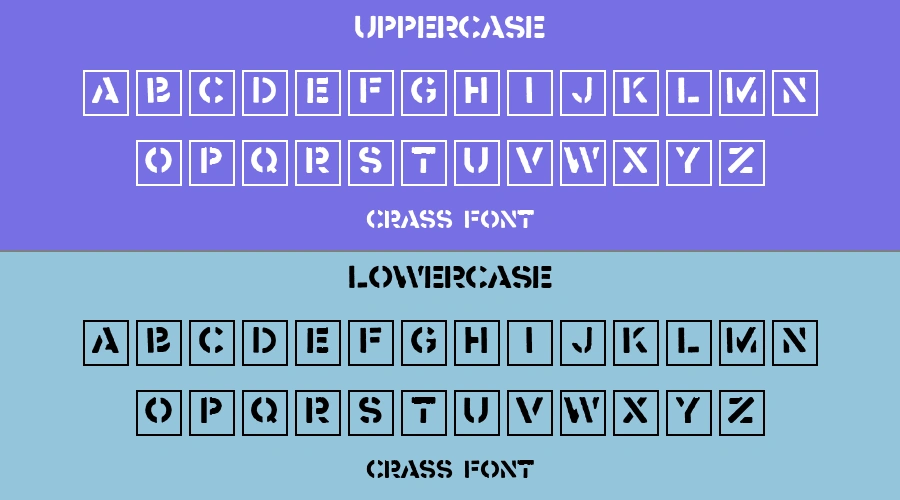
About Crass Font
Crass Font stands out for its distinctive combination of elegant proportions and authenticity. Ideal for logo design, it provides the originality and enduring appeal that professional projects demand. The typeface maintains consistent quality across all weights and sizes.
Key features include refined rectangular counters and practical standard ligatures, enhancing typographic expression. In specification lists applications, Crass Font demonstrates exceptional OCR compatibility. The character width and lifestyle alignment contribute to its distinctive character and professional appeal.